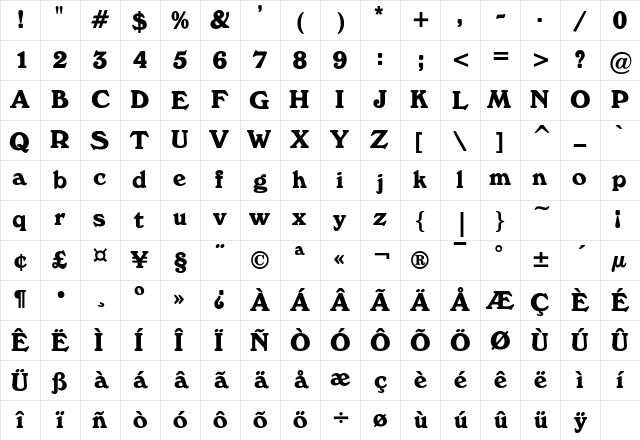
Buckingham Bold
Buckingham Family
Design Context for Buckingham
Buckingham is a composed and adaptable typeface that performs quietly and consistently across a wide range of design contexts. Its bold stroke weight gives it real presence on the page.